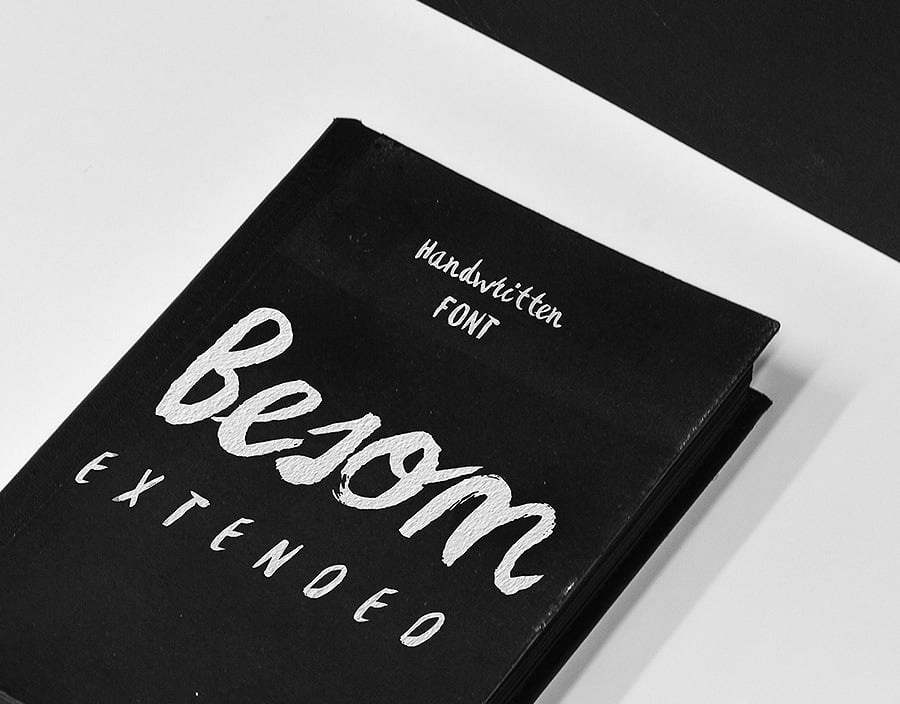
Besom Extended - Handwritten brush font
Besom extended is the pro version of the previous font - Besom. It has been updated and now contains mall letters , cryllic letters and EU country based glyphs. About 340 glyphs make the new and more fresh handmade typeface.